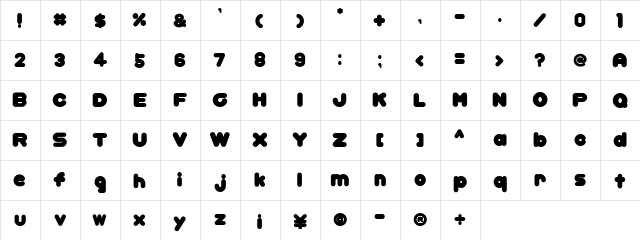
Inu Regular Font Preview
Inu Regular
Design Context for Inu Typeface
Inu takes a measured approach to typography — its balanced proportions and neutral character make it a reliable workhorse for both digital and print work.